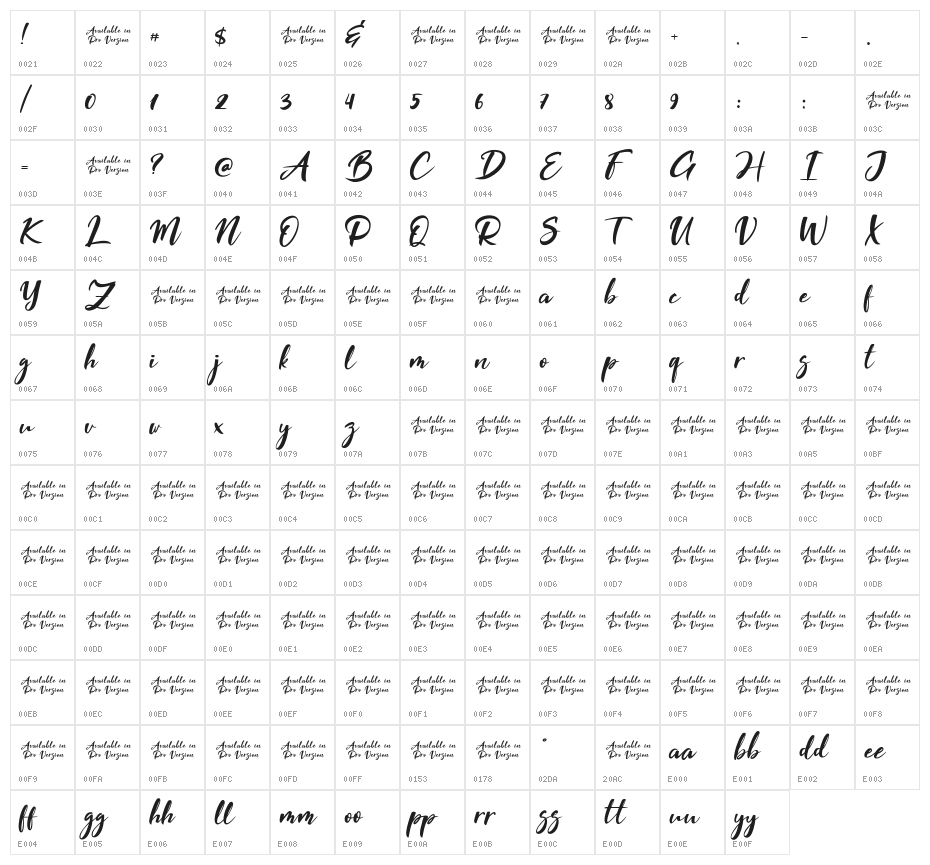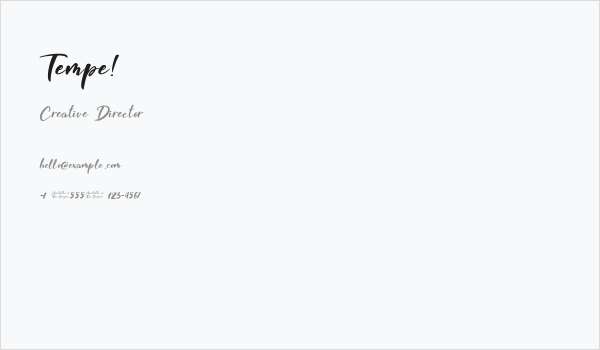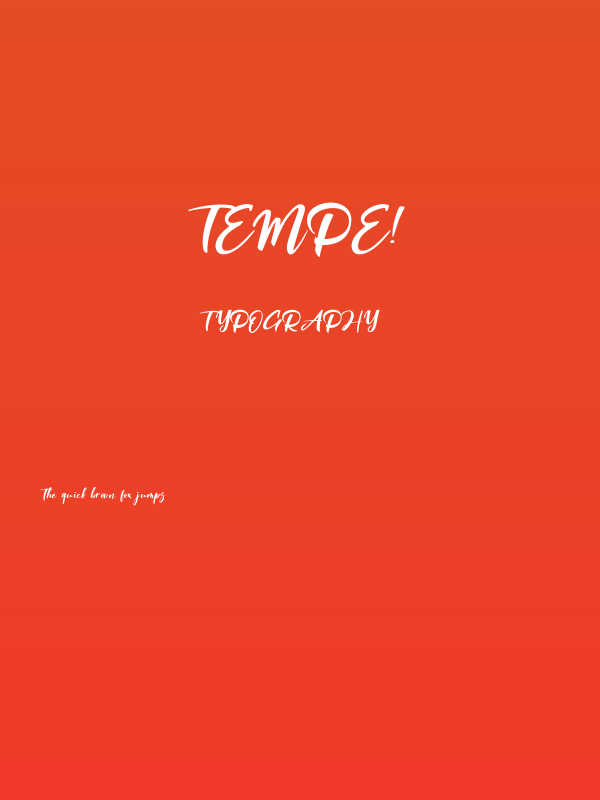
Tempe! Font
Tempe! Description
This font features a dynamic and fluid script style, characterized by its elegant and flowing letterforms. The uppercase letters are bold and sweeping, with a distinct slant that adds a sense of movement and grace. The lowercase letters maintain a consistent style, with smooth curves and a slightly condensed form that enhances readability. The numerals are well-integrated into the overall design, maintaining the same fluidity and style as the alphabet. Special characters are thoughtfully designed to complement the script, adding versatility for various uses. This font exudes a sense of sophistication and creativity, making it suitable for a wide range of design projects.
| Overall Style | Elegant, Creative |
| Proposed Projects | Ideal for wedding invitations, branding, logos, and elegant packaging designs. |